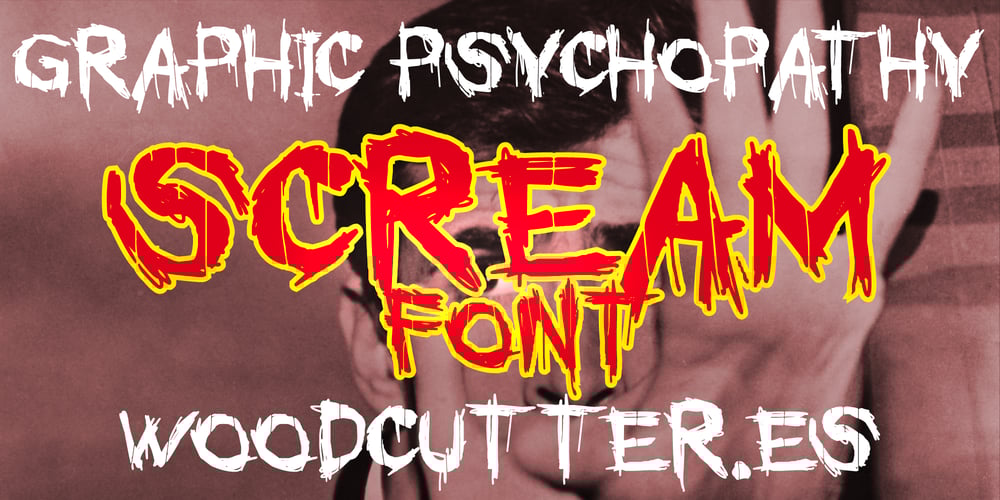
Graphic Psychopathy Font Family was designed by Jordi Manero and published by Woodcutter. Graphic Psychopathy contains 1 styles and family package options. “Graphic Psychopathy” is an uppercase font that looks as if it has been ripped or carved with rage. The letters feature irregular, sharp cuts, creating a disturbing and chaotic appearance. Its design conveys a sense of aggression and disorder, making it ideal for projects that aim to shock or generate tension. This font, which also includes accents, is perfect for horror movie posters, album covers, or any design that seeks to evoke a dark and unsettling atmosphere. The torn and visceral style of this font makes it a unique and powerful choice.